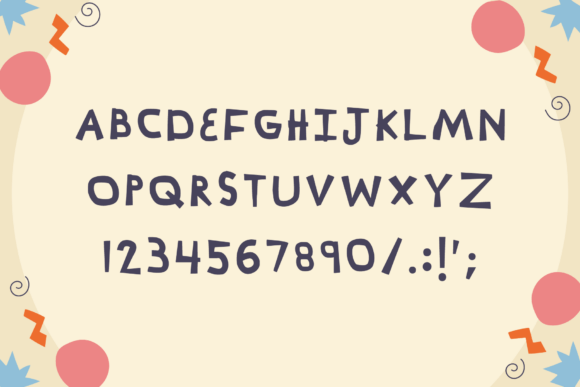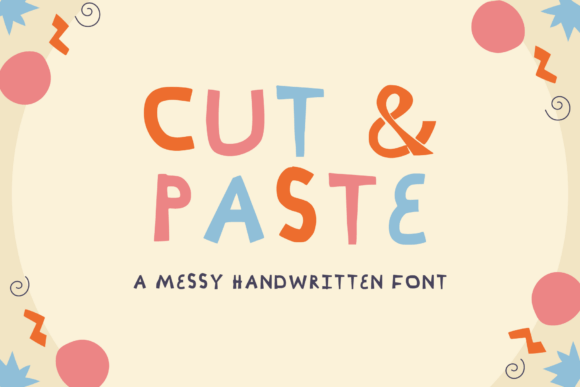
Introducing Cut & Paste: The Playful Handwritten Font for Creative Projects
Are you tired of using the same old fonts for your creative projects? Do you want to add a touch of whimsy and playfulness to your designs? Look no further than Cut & Paste, a unique and lively handwritten font that’s perfect for scrapbooking, DIY crafts, kids’ projects, zines, and more!
Inspired by the Look of Letters Cut from Construction Paper
Cut & Paste is a font that’s inspired by the look of letters cut from construction paper. With its imperfect, quirky, and chaotic charm, this font is sure to bring a smile to your face. The letters are designed to look like they were cut out by hand, with rough edges and irregular shapes that give them a delightfully handmade feel.
Whether you’re designing stickers, posters, invitations, or digital projects, Cut & Paste is the perfect font for adding a fun and artsy touch. The font is versatile and can be used for a wide range of creative projects, including:
- Scrapbooking: Add a personal touch to your scrapbook pages with Cut & Paste.
- DIY Crafts: Use Cut & Paste to create unique and eye-catching labels, tags, and other embellishments for your DIY crafts.
- Kids’ Projects: Cut & Paste is perfect for kids’ projects, such as making posters, flyers, and other fun crafts.
- Zines: Add a touch of whimsy to your zines with Cut & Paste.
- Digital Projects: Use Cut & Paste to add a handmade feel to your digital projects, such as social media graphics, blog posts, and more.
What Makes Cut & Paste So Special?
So, what makes Cut & Paste so special? Here are just a few things that set this font apart:
- Imperfect and Quirky: Cut & Paste has a delightfully imperfect and quirky charm that’s sure to add a touch of personality to your designs.
- Handmade Feel: The font has a handmade feel that’s perfect for projects that require a personal touch.
- Versatile: Cut & Paste is a versatile font that can be used for a wide range of creative projects.
- Easy to Read: Despite its imperfect nature, Cut & Paste is easy to read and understand, making it perfect for use in a variety of contexts.
How to Use Cut & Paste
If you’re looking for a font that’s playful, whimsical, and perfect for creative projects, look no further than Cut & Paste. With its imperfect, quirky, and chaotic charm, this font is sure to add a touch of personality to your designs. Download Cut & Paste today and start crafting with this unique and lively typeface!